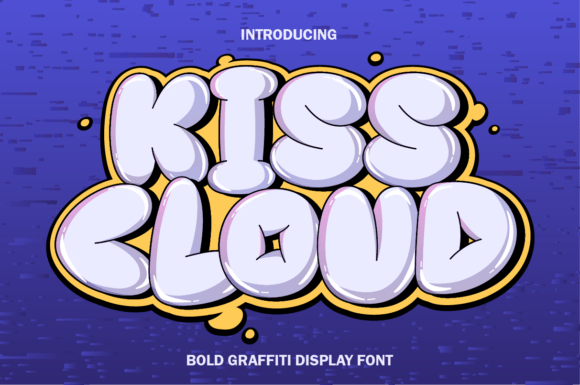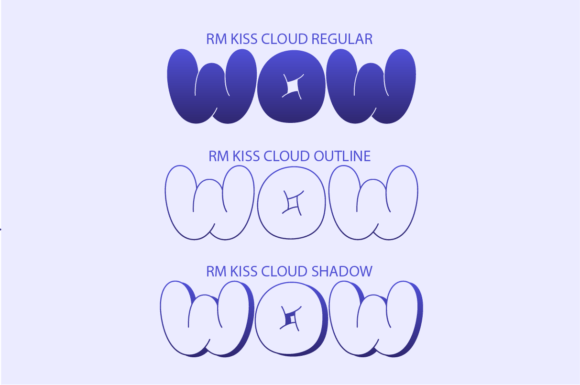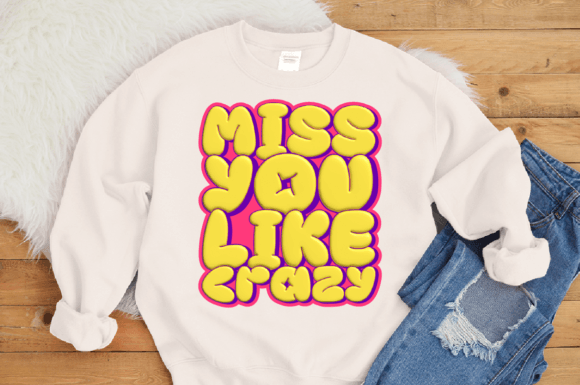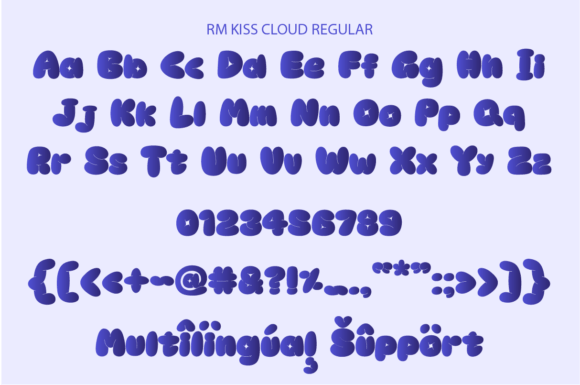
Kiss Cloud Font: A Playful Graffiti Display Font for Cricut & DIY
About the Kiss Cloud Font
The Kiss Cloud Font offers a perfect balance of form and function for your design needs. Kiss Cloud Graffiti is fun display font in graffiti style. Perfect for create street shirt. Easy and harmony to mix and match with street element. Come with regular / outline / shadow easy to use.
Kiss Cloud Font’s playful, rebellious energy makes it ideal for headlines, posters, and branding projects targeting a young, urban demographic. It works exceptionally well for streetwear apparel designs, skate brands, or music festival promotions. Avoid using it for body text or UI elements; its informal style is unsuitable for extended readability.
Pairing Kiss Cloud with a clean sans-serif like Montserrat for body copy creates a balanced contrast, while a geometric sans-serif like Futura adds a touch of modern sophistication. For a more organic feel, consider pairing it with a handwritten script font.
The font’s core personality is undeniably bold and youthful, perfectly capturing a street-style aesthetic. Its versatility, thanks to included outline and shadow variations, allows for creative exploration within the graffiti-inspired theme.